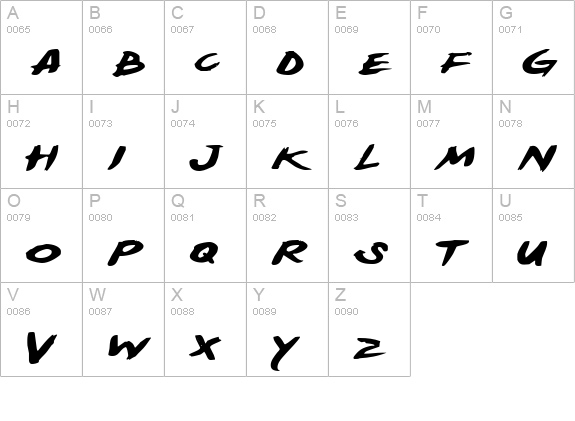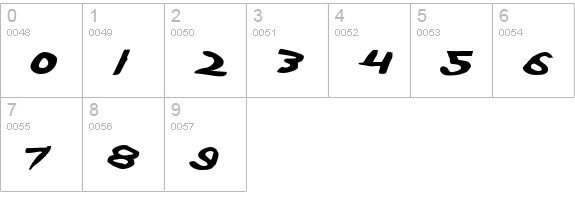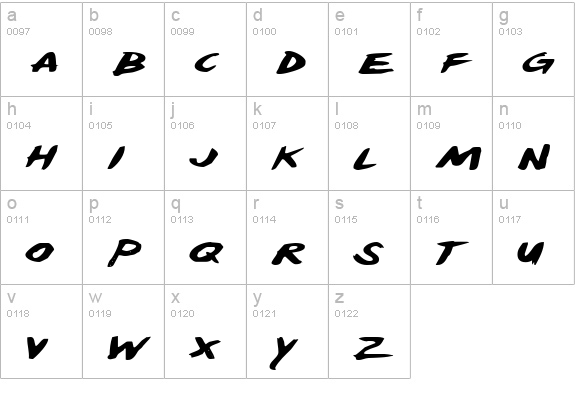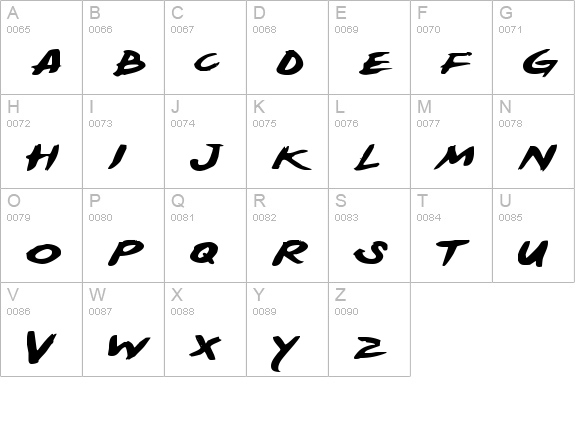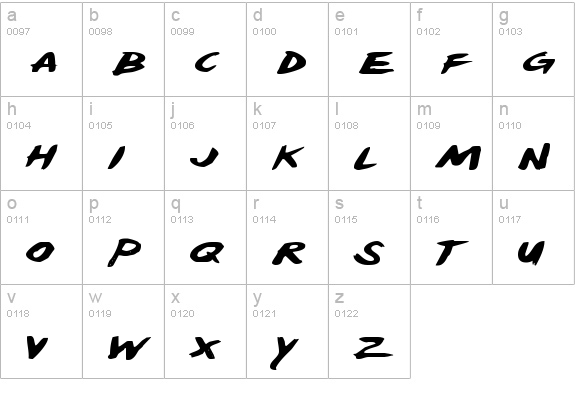
Yellowjacket Expanded Font Details
Yellowjacket Expanded is a distinctive, extended-width variant in the Yellowjacket typeface family \xE2\x80\x94 well suited to design and typography projects.
Yellowjacket Expanded is a bold and dynamic font that exudes confidence and modernity. With its sharp edges and striking presence, this typeface is perfect for making a bold statement in any design project. The expanded version of Yellowjacket adds an extra touch of sophistication and versatility, making it suitable for a wide range of applications. This font is not only visually appealing but also highly functional, ensuring readability and impact across various mediums. Whether you're designing a poster, flyer, logo, or website, Yellowjacket Expanded will make your text stand out and grab attention. And the best part? Yellowjacket Expanded is available for free download at FontsMarket.com. So go ahead and add this powerful font to your collection today and elevate your design projects to the next level!